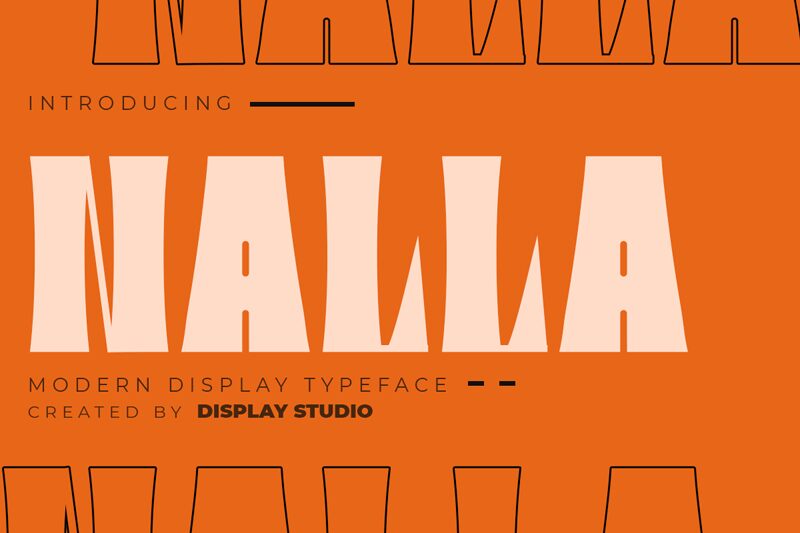
Nalla
Nalla, designed by Display Studio, is a retro display typeface with an extra-bold weight and semi-condensed width.
This font is perfect for creative projects that require a bold and eye-catching touch. It's ideal for adding a watermark to photography, creating striking logos and branding, designing invitations and advertisements, crafting product designs, stationery, wedding materials, labels, product packaging, and special events. Its handwritting taste adds a unique flair to any project it's used in.
Nalla brings a vintage vibe that can elevate the visual appeal of various designs and materials. Whether you're working on digital or print projects, this display typeface is sure to make a statement with its bold weight and retro style.